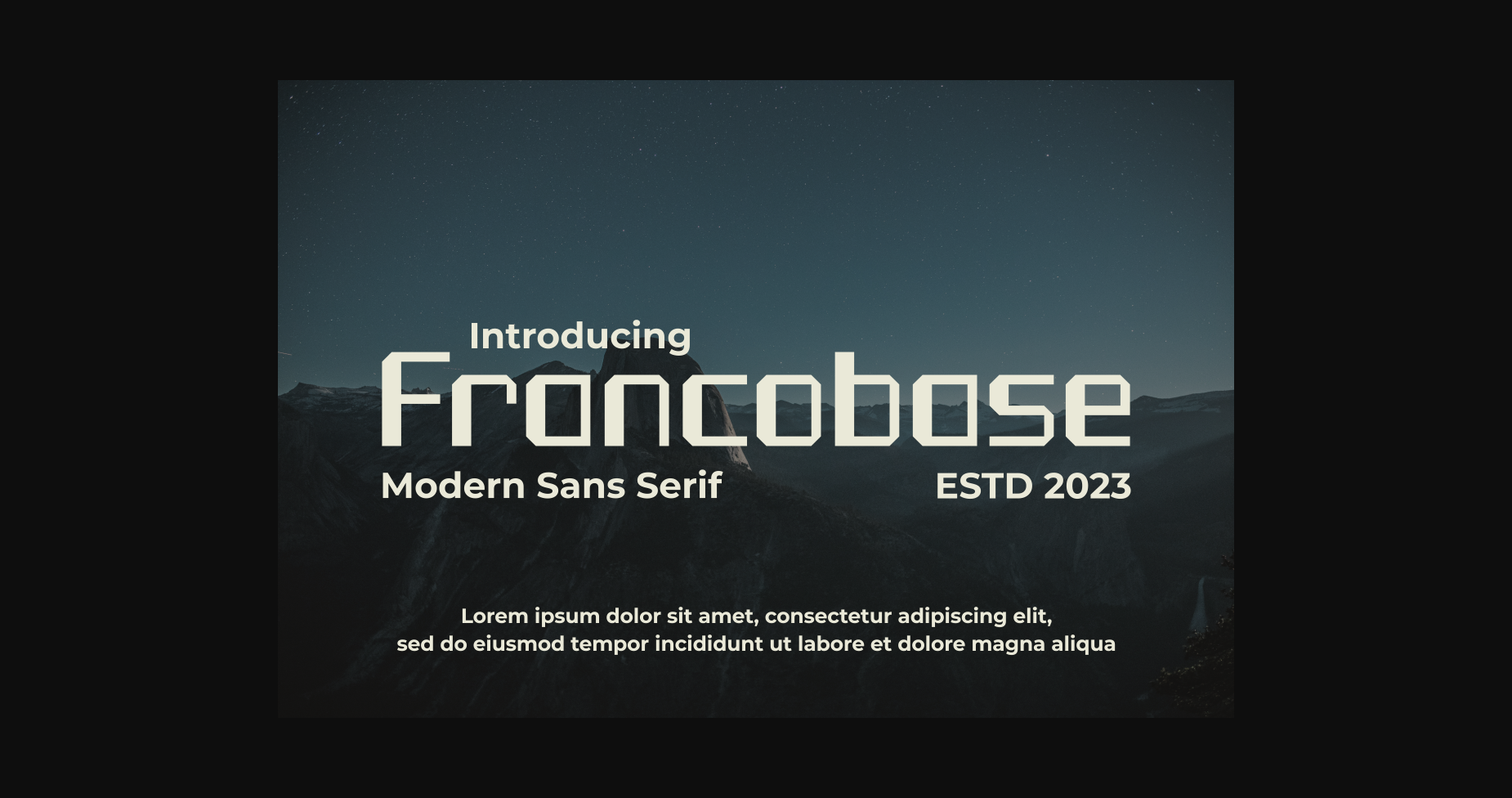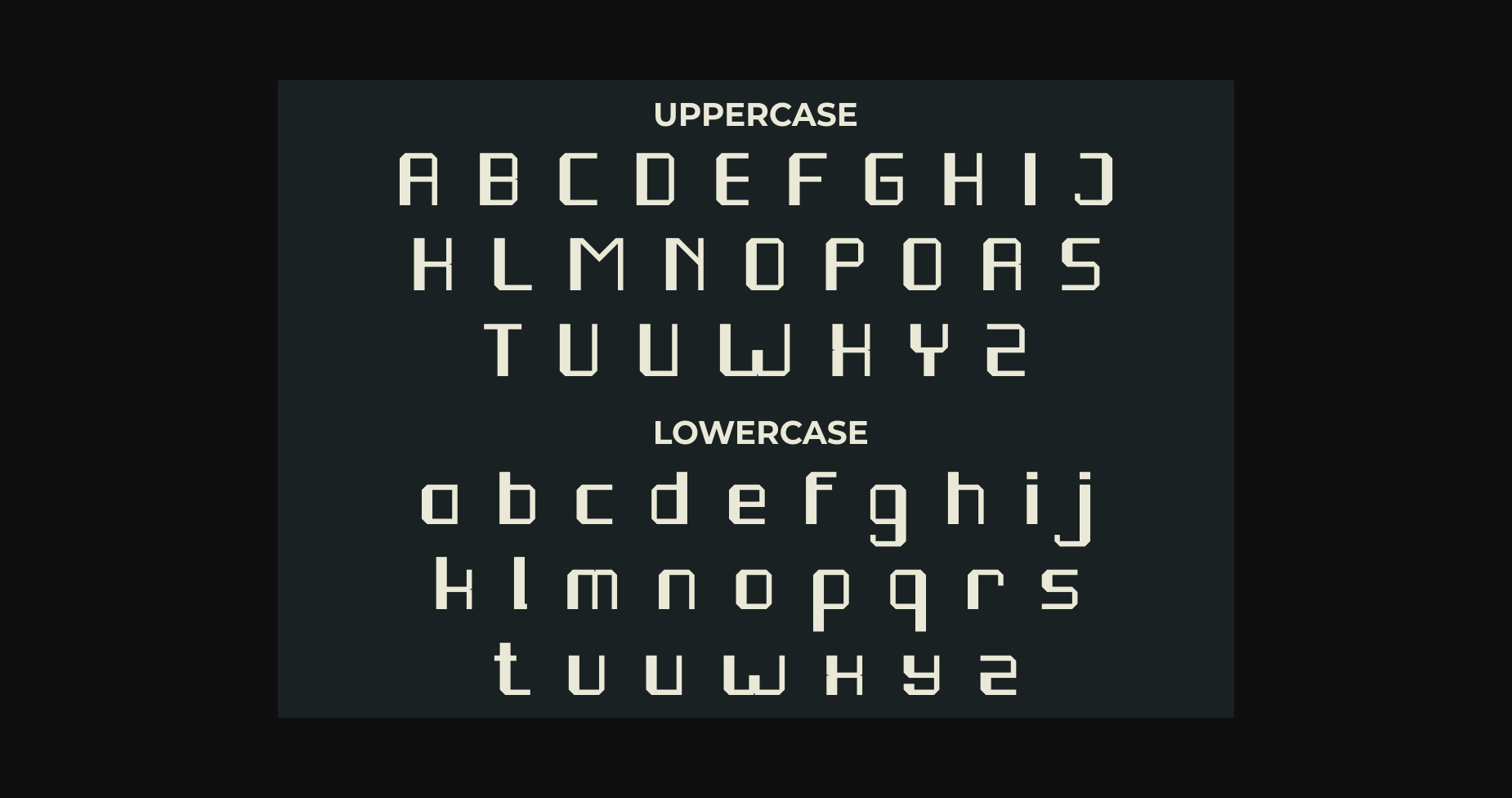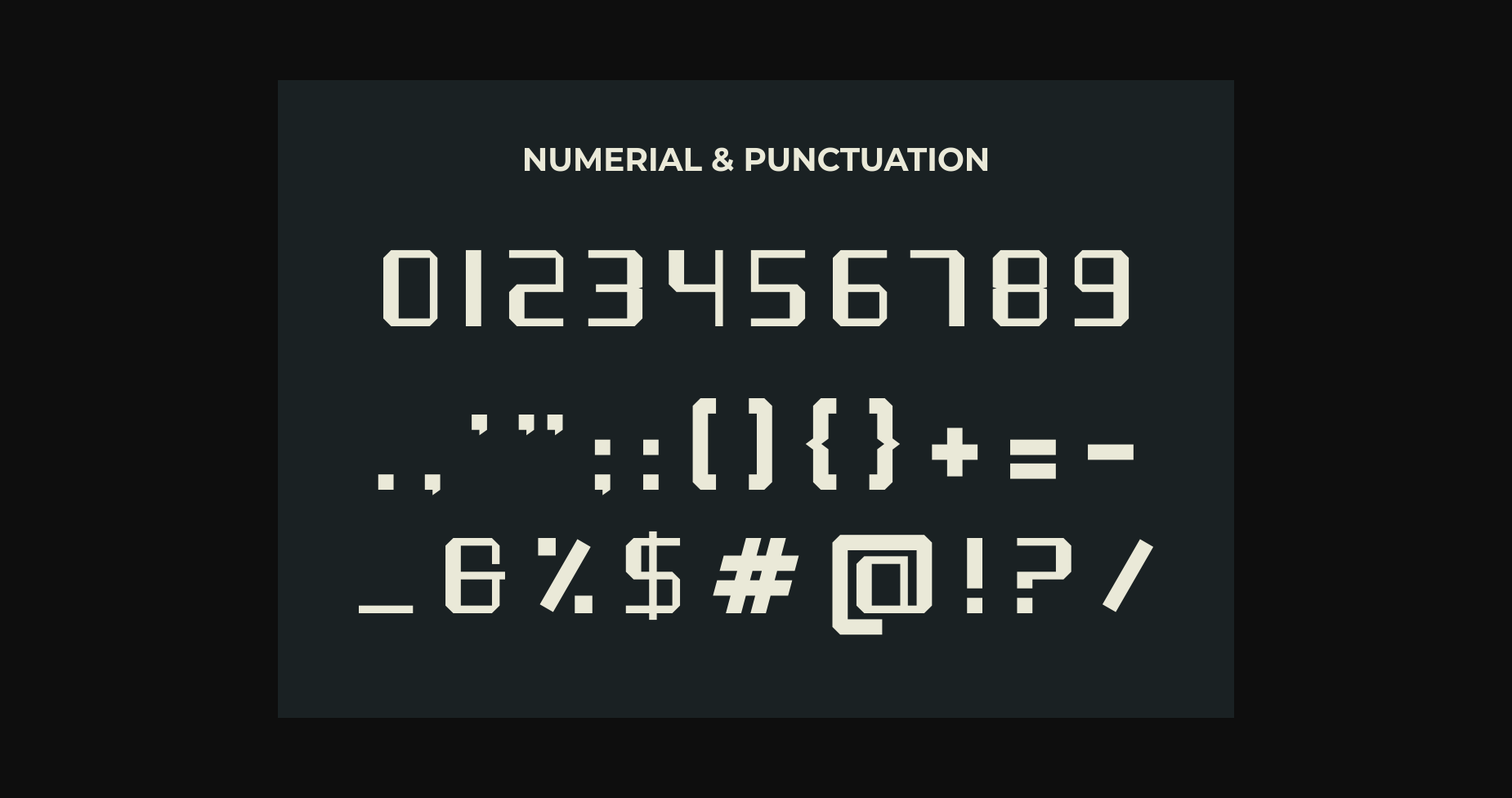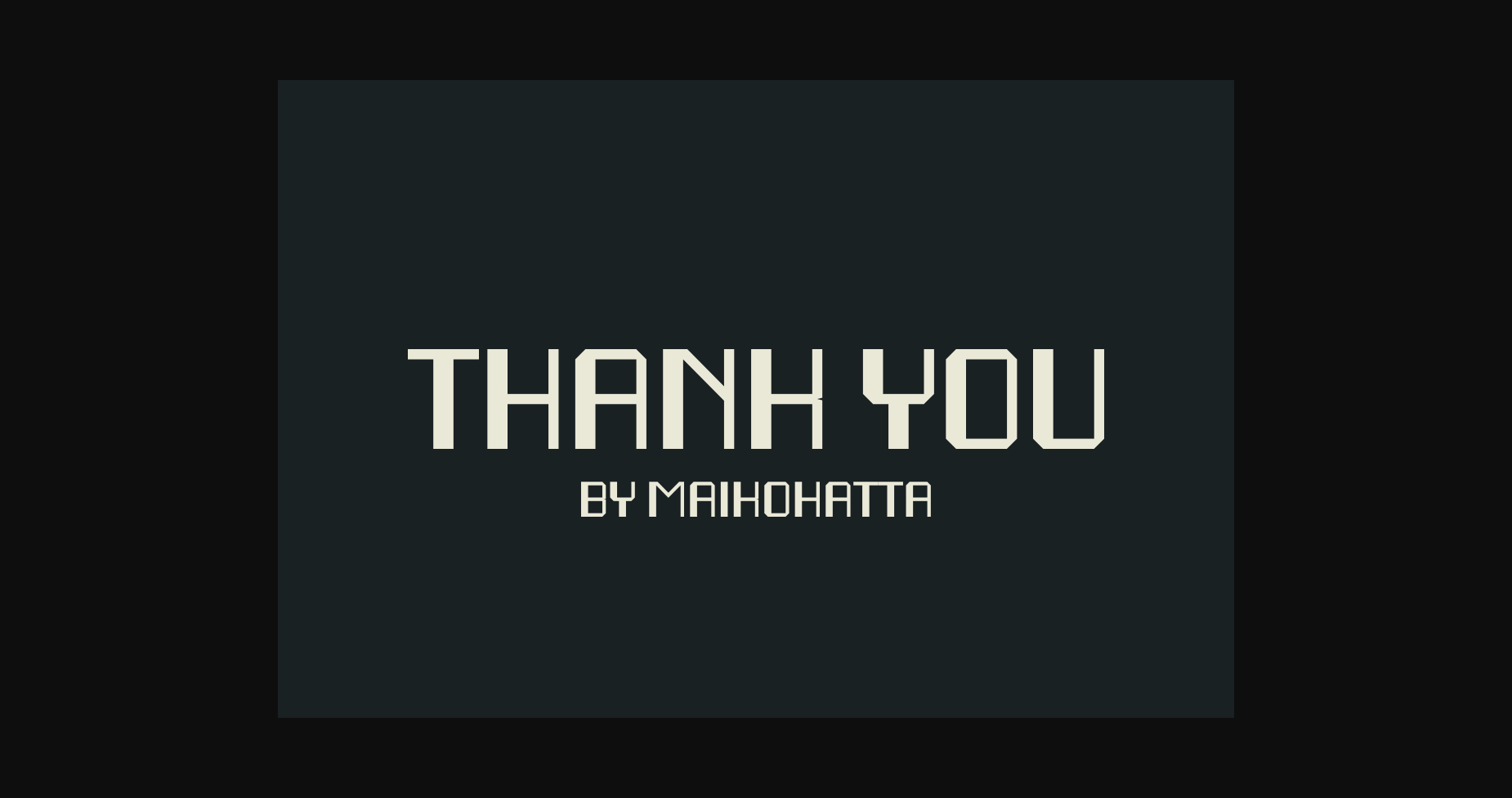
Francobase Font
About Francobase Font
Francobase is a cool and modern sans serif font. It has a clean, thin, and smooth vibe and it will be a hit for any design that you want to add it to.